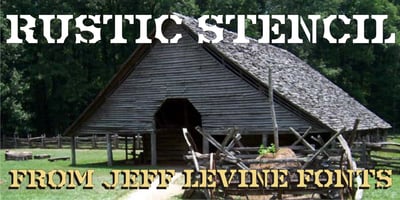
Rustic Stencil JNL
Rustic Stencil JNL font
Rustic Stencil JNL Font Family was designed by Jeff Levine and published by Jeff Levine. Rustic Stencil JNL contains 1 styles and family package options. A hand-lettered title on a children’s stencil book for sale in an online auction served as the basis for Rustic Stencil JNL. Reminiscent of classic wood type, this stencil design adds a Western-influenced flair to any typographic project.